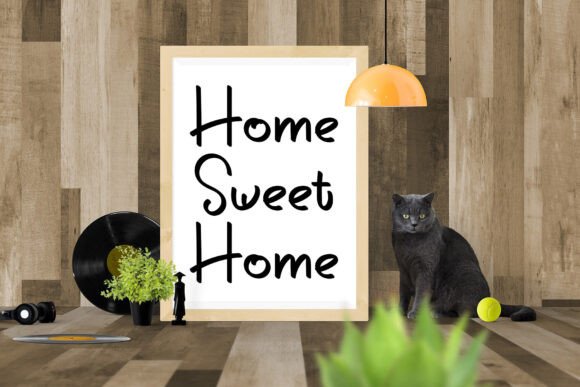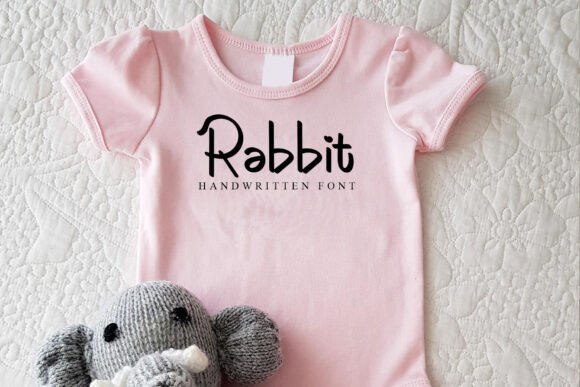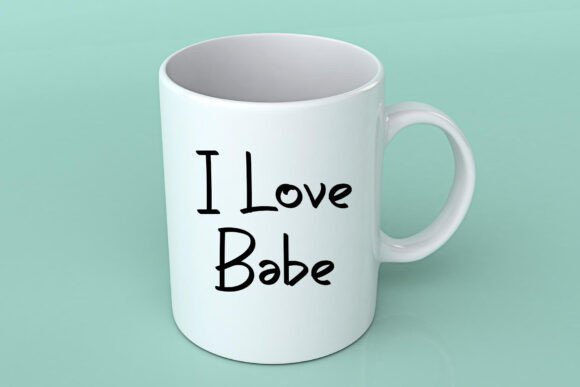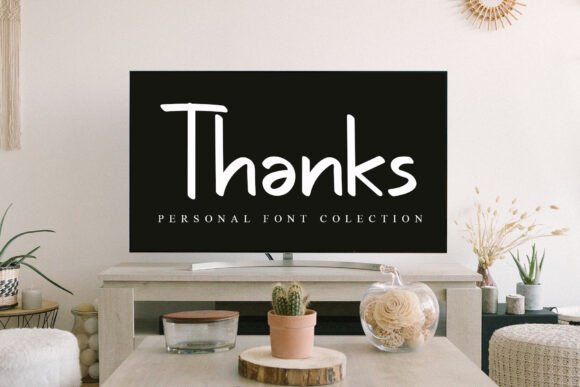
Introduction to Raffi Font
Have you ever been working on a creative project, pouring your heart and soul into it, only to be held back by the perfect font to bring your vision to life? We’ve all been there. But what if you could have access to a unique and elegant font that’s specifically designed to elevate your work? Enter the Raffi Font, a high-quality design resource that’s perfect for any creative project.
Whether you’re working on a wedding invitation, a birthday card, or a school assignment, the Raffi Font is the perfect companion to help you create something truly special. With its professional hand-touch and transparent background, this font is sure to make your designs stand out from the crowd. And the best part? It’s accessible with all glyphs, so you don’t have to worry about any additional applications or downloads.
Key Features of Raffi Font
- Unique Hand-Drawn Design: The Raffi Font features a distinctive, hand-drawn design that adds a touch of personality to any creative project.
- Multi-Lingual Support: The Raffi Font supports a wide range of languages, making it an ideal choice for international design projects.
Honest Review: Raffi Font
As a designer, I’m always on the lookout for high-quality design resources that can elevate my creative projects. Recently, I had the chance to try out the Raffi Font, and I’m excited to share my honest review.
- ✨ The font is highly customizable, with a range of styles and weights to choose from.
- ✨ The transparent background makes it easy to use in design projects that require a clean and minimalist look.
- ⚠️ Some users may find the font’s design to be a bit too simple or generic.
Overall, I’m impressed with the Raffi Font. It’s a great resource for designers who want a high-quality, free font that’s easy to use. While it may have some limitations, it’s definitely worth considering for your next creative project.
Raffi Font
Tips for Getting the Most Out of Raffi Font
1. Experiment with different font sizes and colors to enhance visual appeal.
2. Combine Raffi Font with other design elements for a cohesive look.
Raffi Font is suitable for various creative projects, including:
1. Social media graphics and posts.
2. Infographics and presentations.
3. Brochures and marketing materials.